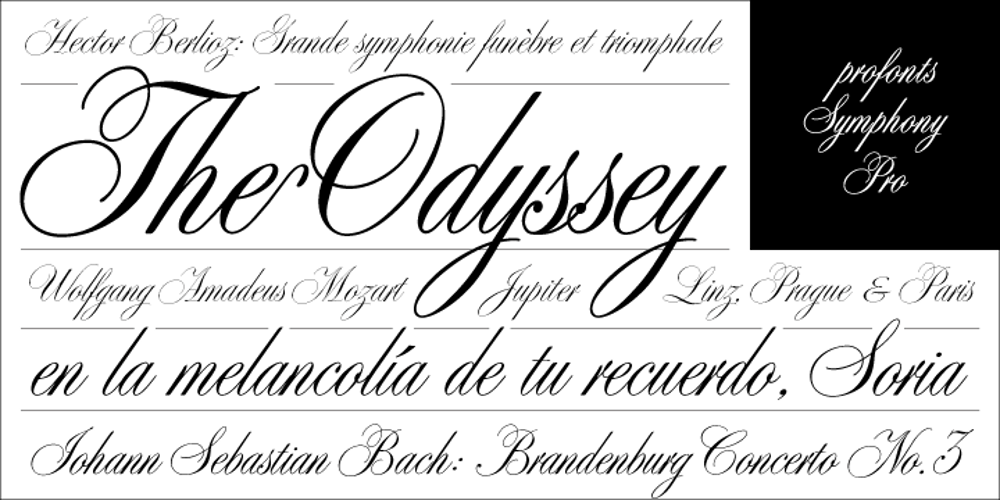
Symphony
Symphony font
Symphony Font Family was designed by Profonts Studio and published by profonts. Symphony contains 2 styles and family package options. Symphony Pro… sounds like music, elegance and classic quality. That’s exactly how Symphony Pro carries the message to the reader. Symphony Pro is a rather formal script with very beautiful, generous and swashy upper case that was redesigned, digitized, completed and expanded as OpenType in the profonts type studio. Symphony Pro comes with more than 800 characters covering the complete Latin glyph set for West and East including Baltic and Turkish. Addionally, there is a large selection of ligatures, character combinations and alternates to make this beautiful script design a perfect font for OTF-savvy applications like e.g. InDesign or Quark Xpress 7. Symphony Pro is a very distinguished, elegant and versatile script font well-suited for anything in the area of classical music, art, ballet etc. Also, it is good for certificates, reports, documents and alike.